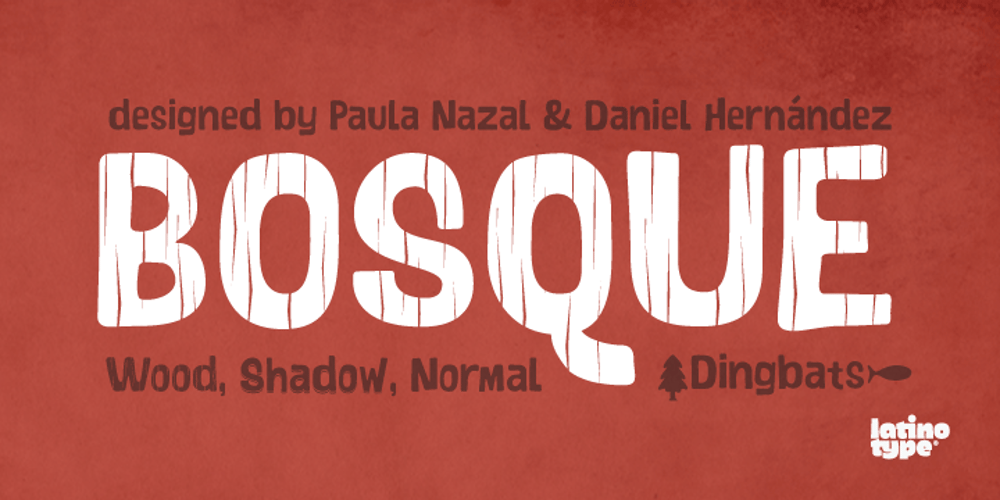
Bosque
Bosque font
Bosque Font Family was designed by Paula Nazal Selaive, Daniel Hernández and published by Latinotype. Bosque contains 6 styles and family package options. Bosque is a typeface designed by Paula Nazal and Daniel Hernandez. It belongs to handmade style, it’s rough and raw with soft edges. It has 6 variants: Normal, Wood, Shadow, Wood Shadow, Dingbats y Shadow One, this gives great versatility. It possess a wide set of characters, ligatures and some alternates.